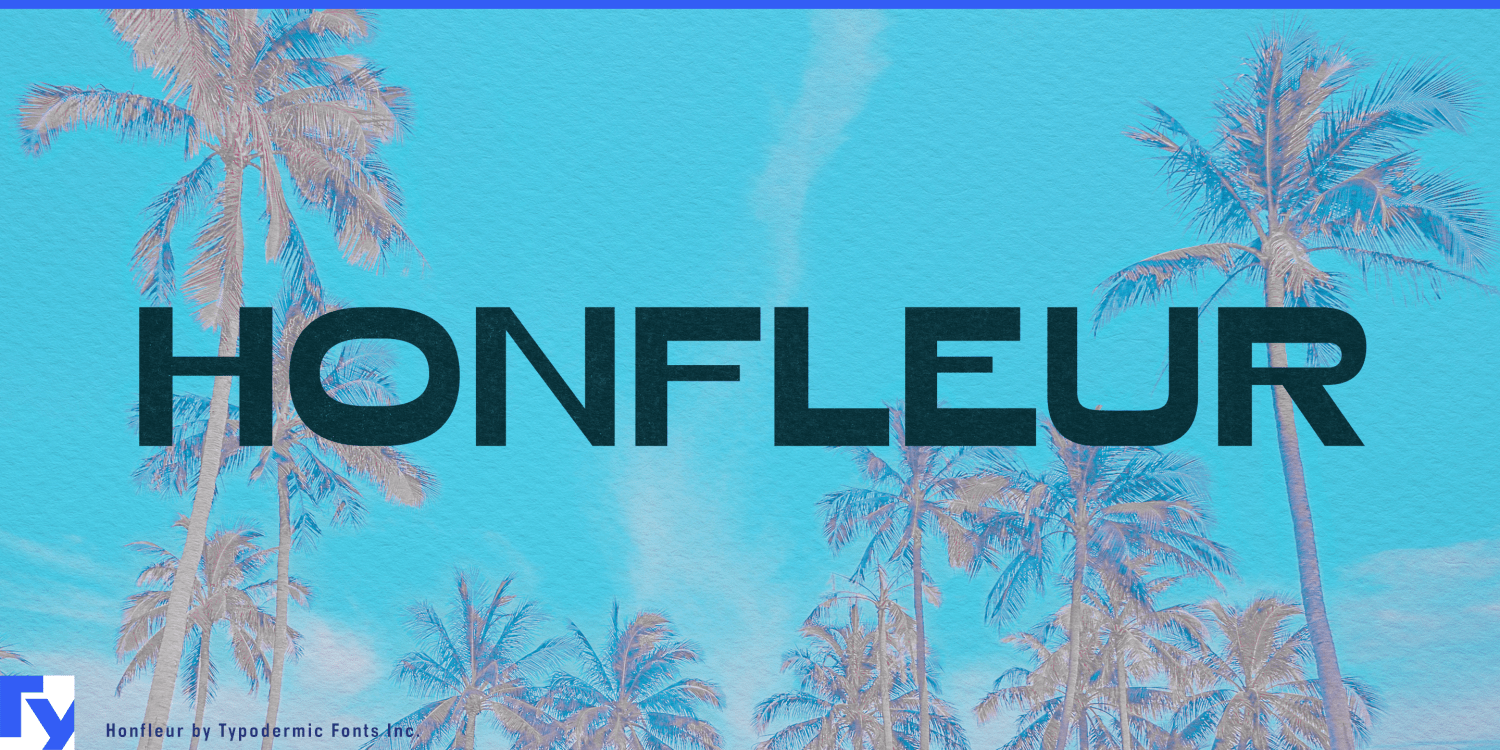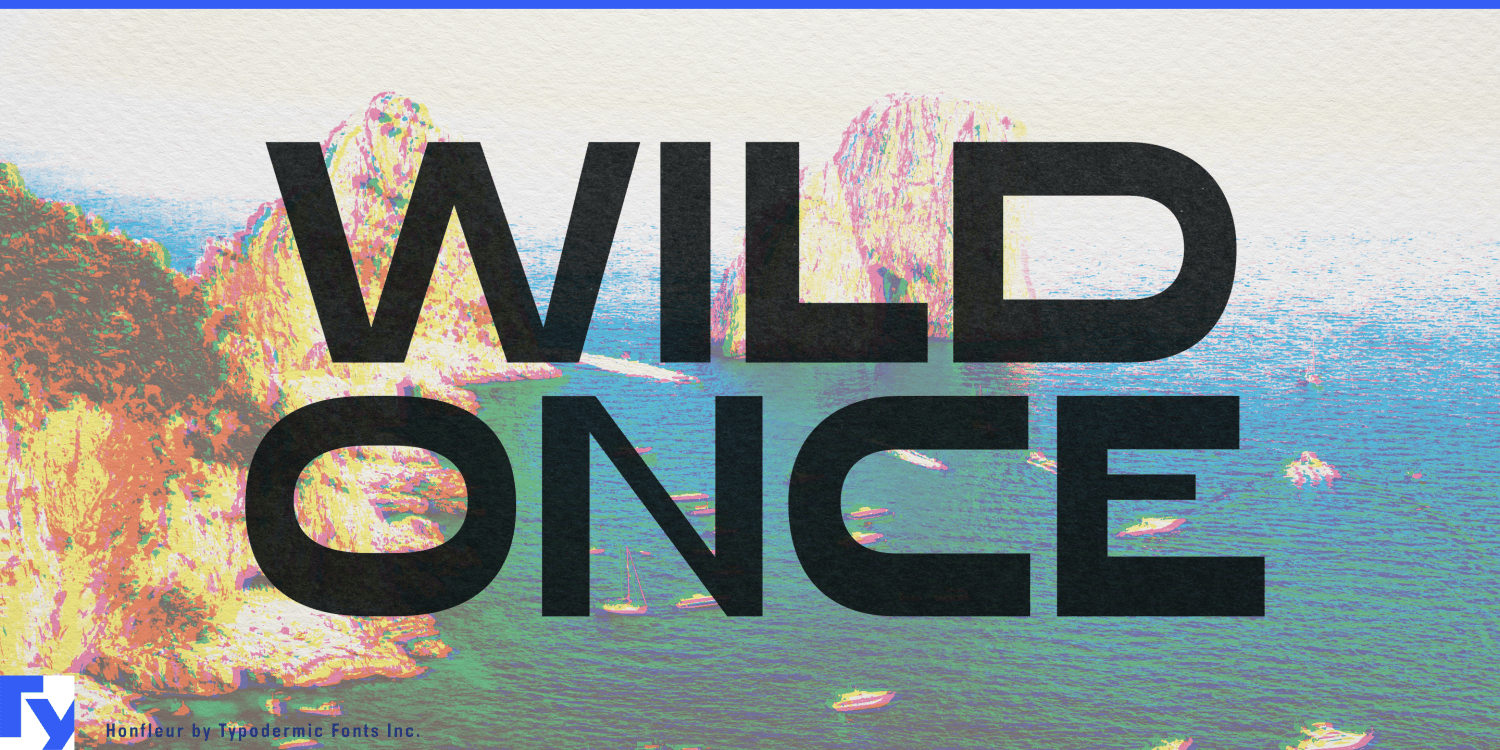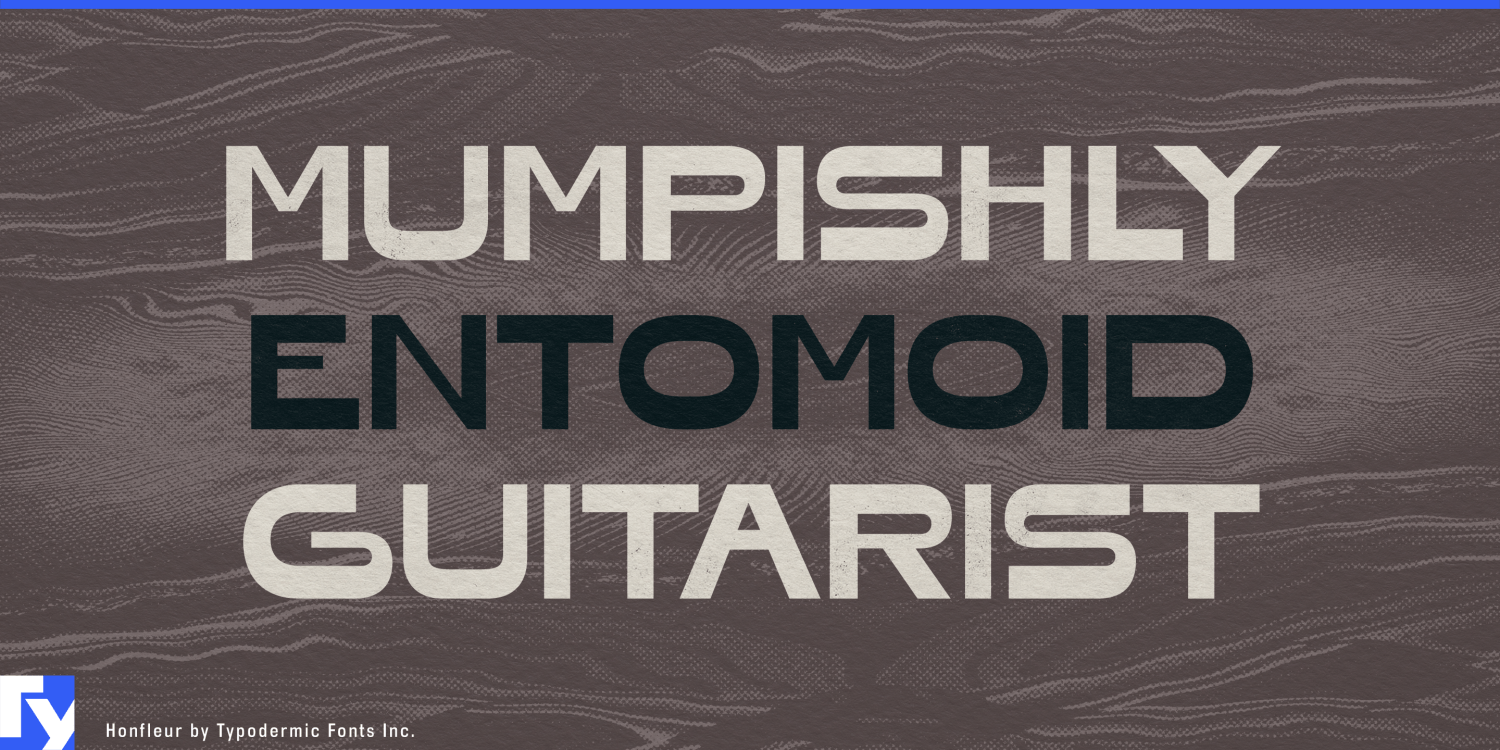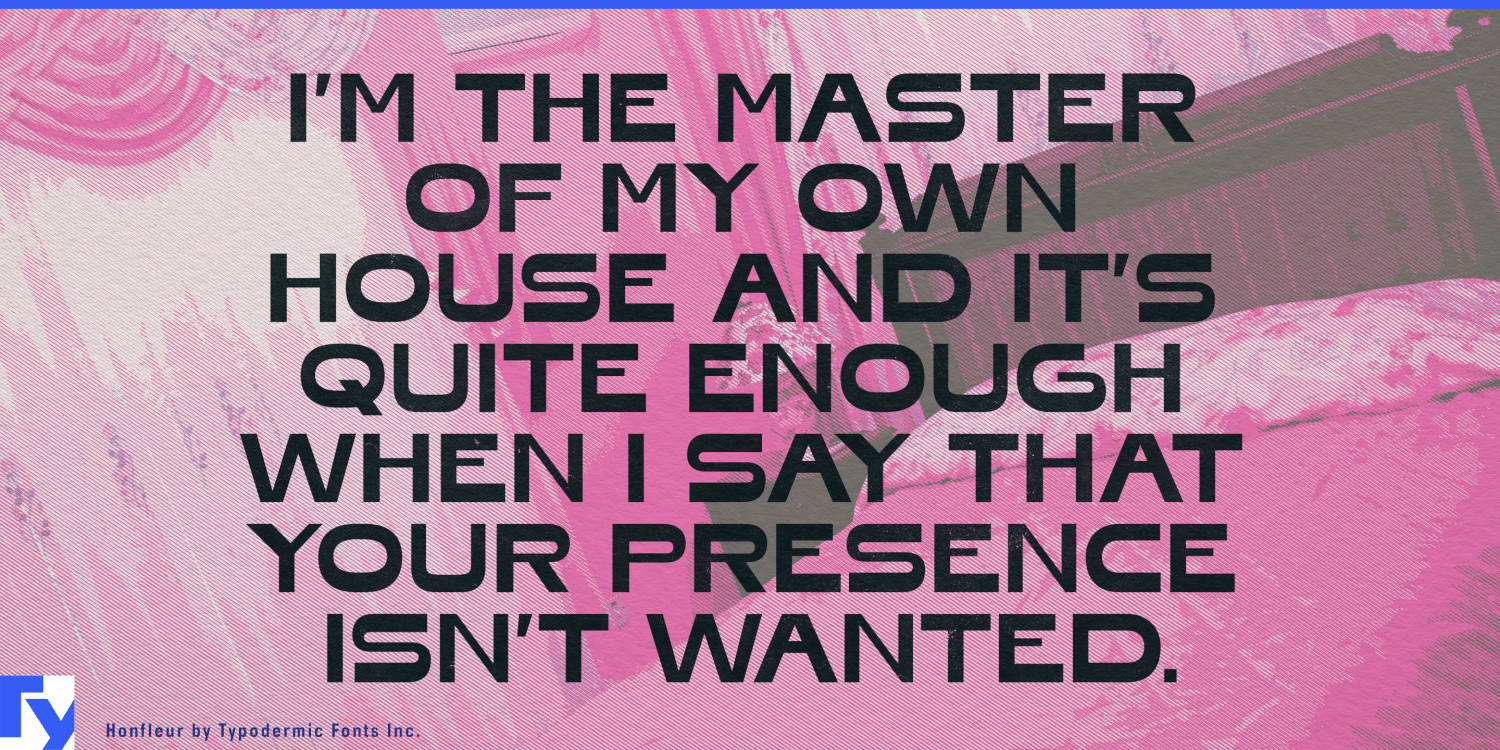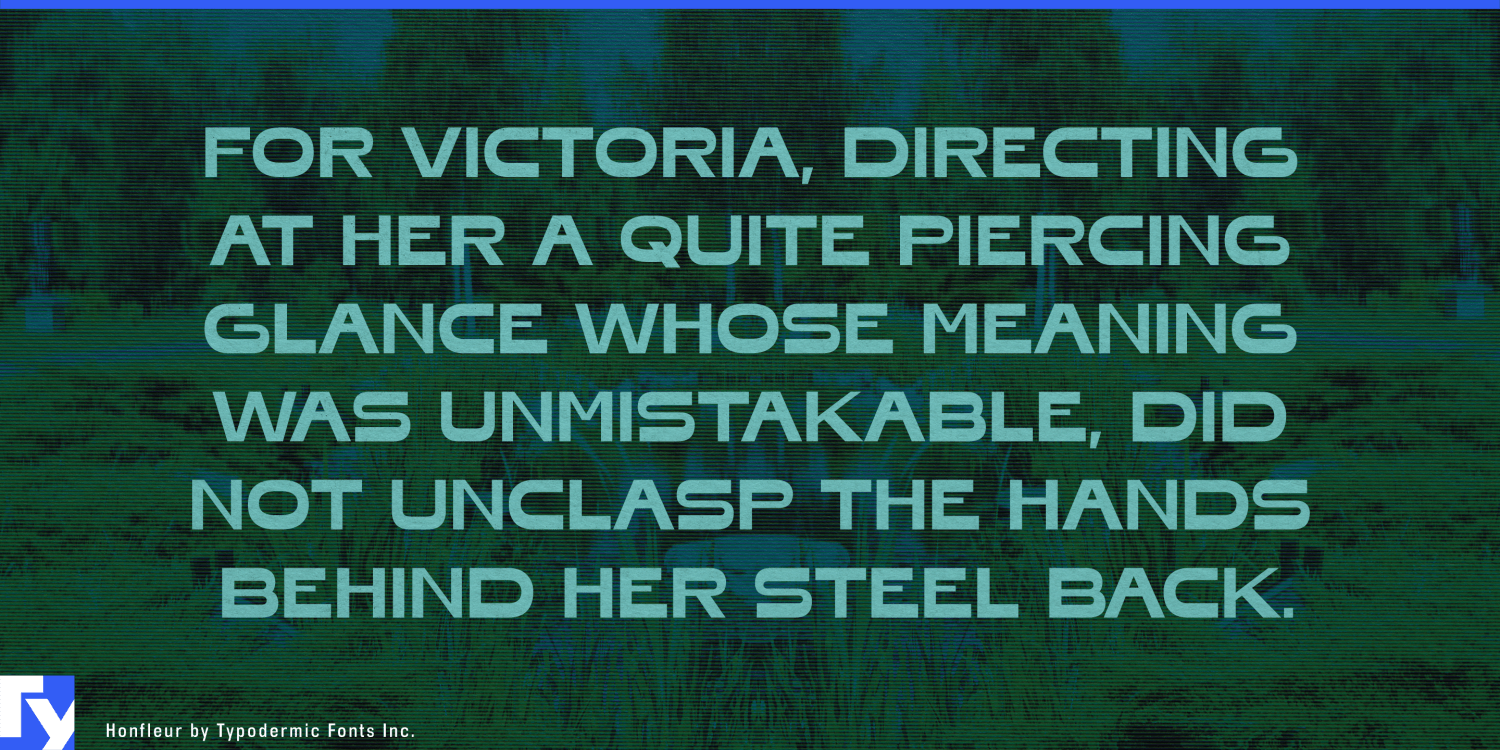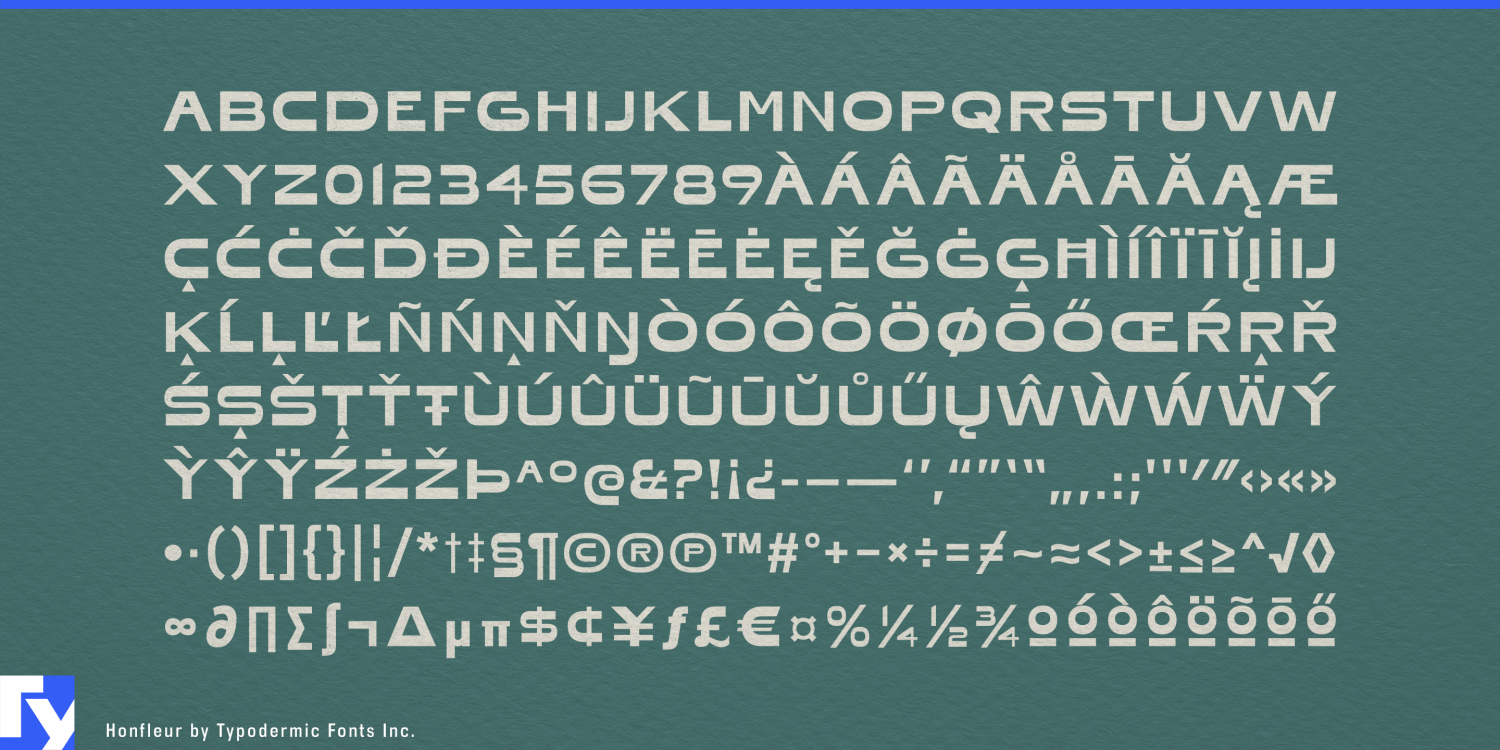
Honfleur
Many premium products are designed to disappear gracefully into the home, yet their typography still announces “technology.” Soundbars, charging docks and slim media devices sit among wood, stone, textiles and furniture, but their branding often falls back on the same clinical geometric sans used throughout consumer electronics. There is also a physical problem: long, low products provide generous horizontal space and very little height, while normal-width lettering can leave that surface underused. Honfleur turns those proportions into part of the identity.
Its exceptionally wide forms can run naturally along a soundbar chassis, desktop speaker, media hub or home-theater control unit without exaggerated tracking or artificial stretching. The design retains the sleekness expected from premium electronics, but its 1930s-derived construction brings a more cultivated character than the usual technical vocabulary. For products meant to coexist quietly with interiors, that difference can help the technology feel more like part of the room.
The expanded Honfleur family carries that idea beyond a single wordmark. Thin and Extra-Light can provide discreet model names on anodized metal, glass or molded housings; Regular and Semi-Bold can establish product families and launch graphics; Heavy can expand the same unmistakably wide proportions across retail displays, showroom walls and campaign photography.
Architectural lighting presents a similar dimensional advantage. Linear pendant lights, wall washers, modular track systems, illuminated mirror bars and acoustic-lighting products are themselves long horizontal objects. Honfleur can echo those proportions in collection names, packaging, specification covers, showroom graphics and exhibition stands, allowing the typography to feel integrated with the industrial design.
Beauty and personal care offer an equally literal fit when the package is chosen carefully. Refillable lipstick cases, lip-treatment sticks, solid perfume, travel fragrance cartridges and premium facial-SPF sticks provide elongated surfaces where a wide brand or product name can run along the object. Honfleur’s origins in 1930s perfume advertising make the connection natural while these refillable, portable formats move the design into contemporary product culture.
Slim beauty devices extend the same logic into technology. Microcurrent tools, treatment wands, scalp devices and long charging cases need to feel sophisticated enough for the beauty counter without resembling laboratory equipment. Honfleur can bridge those worlds, using its lighter weights directly on the device and its heavier styles for retail displays and launch campaigns.
Honfleur does not merely tolerate extreme width; it uses width as a design resource. The family can carry a horizontal identity from a discreet mark on a soundbar, lipstick case or lighting fixture to a full-scale showroom installation.